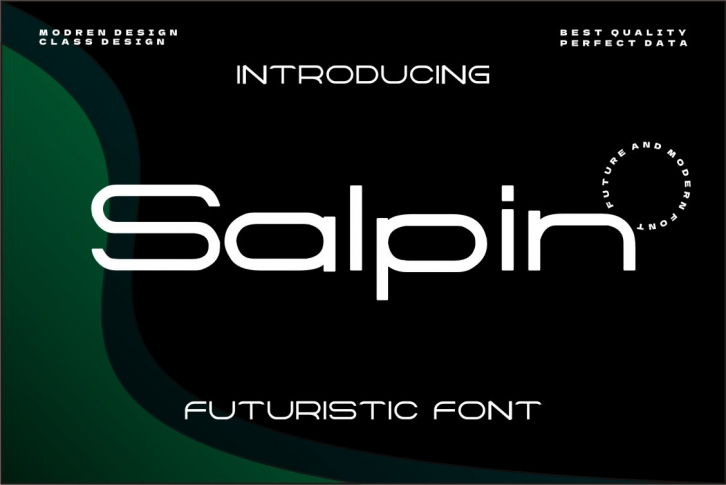
Salpin is a cool, robotic styled display font. This font is ideal for writing web designs, business cards, or pretty much anything else that requires a unique touch.